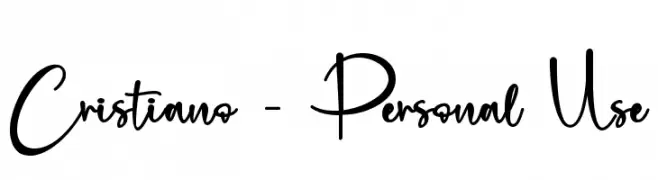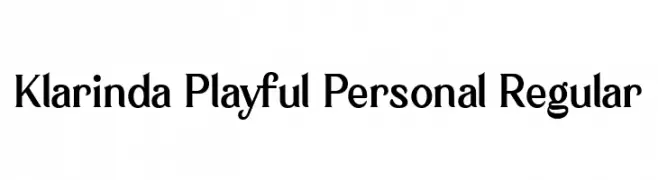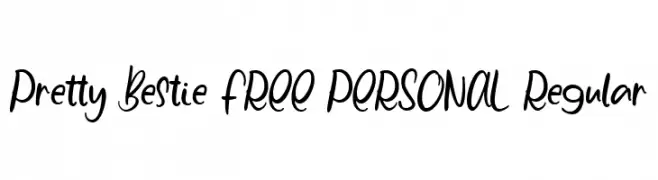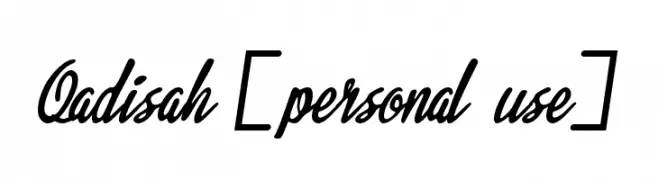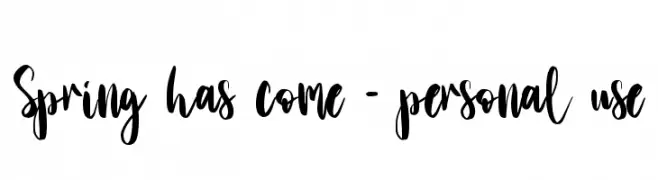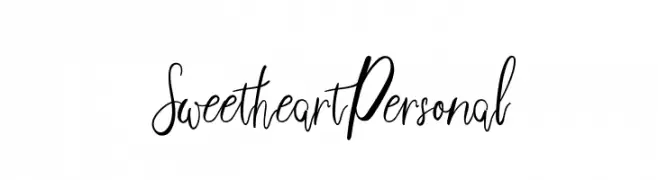
A lively, flowing script font with elegant, cursive strokes.
A cursive, handwritten font with elegant loops and expressive flourishes.
A playful, handwritten font with smooth, rounded edges and a friendly appearance.
A casual, elegant handwritten font with fluid, connected letterforms.
A fluid, handwritten-style font with elegant, connected characters.
A graceful, cursive script font with elegant, flowing strokes.
A playful, handwritten font with a casual and whimsical style.
A casual, playful handwritten font with irregular, organic letterforms.
A playful, casual handwritten font with fluid, connected strokes.
A lively and expressive handwritten font with fluid, connected letterforms.
A stylish and elegant script font with flowing, cursive letters.
A bold, playful script font with a retro, cursive style.
A bold, flowing script font with elegant, cursive letterforms and ornate uppercase characters.
A bold, expressive handwritten font with flowing cursive letterforms.
A playful, handwritten font with rounded, irregular letterforms.
An elegant script font with flowing, ornate characters and decorative embellishments.
A bold, expressive handwritten font with fluid, artistic letterforms.
A dynamic, expressive handwritten font with fluid, cursive letterforms.
A dynamic, expressive handwritten font with fluid, cursive strokes.
A playful, handwritten font with tall, narrow, and slightly slanted characters.
A playful, handwritten font with elongated, narrow characters and a slight slant.
A bold, elegant script font with flowing curves and intricate loops.
A dynamic and elegant script font with flowing, cursive letterforms.
A modern, geometric sans-serif font with clean lines and uniform strokes.
A playful and whimsical font with smooth curves and sharp edges.
A classic serif font with elegant, sharp serifs and a refined, traditional appearance.
A classic serif font with elegant, sharp serifs and a refined appearance.
An elegant, flowing script font with interconnected, cursive letterforms.
A bold, flowing script font with a handwritten, calligraphic style.
A playful and elegant handwritten font with fluid strokes and artistic flair.